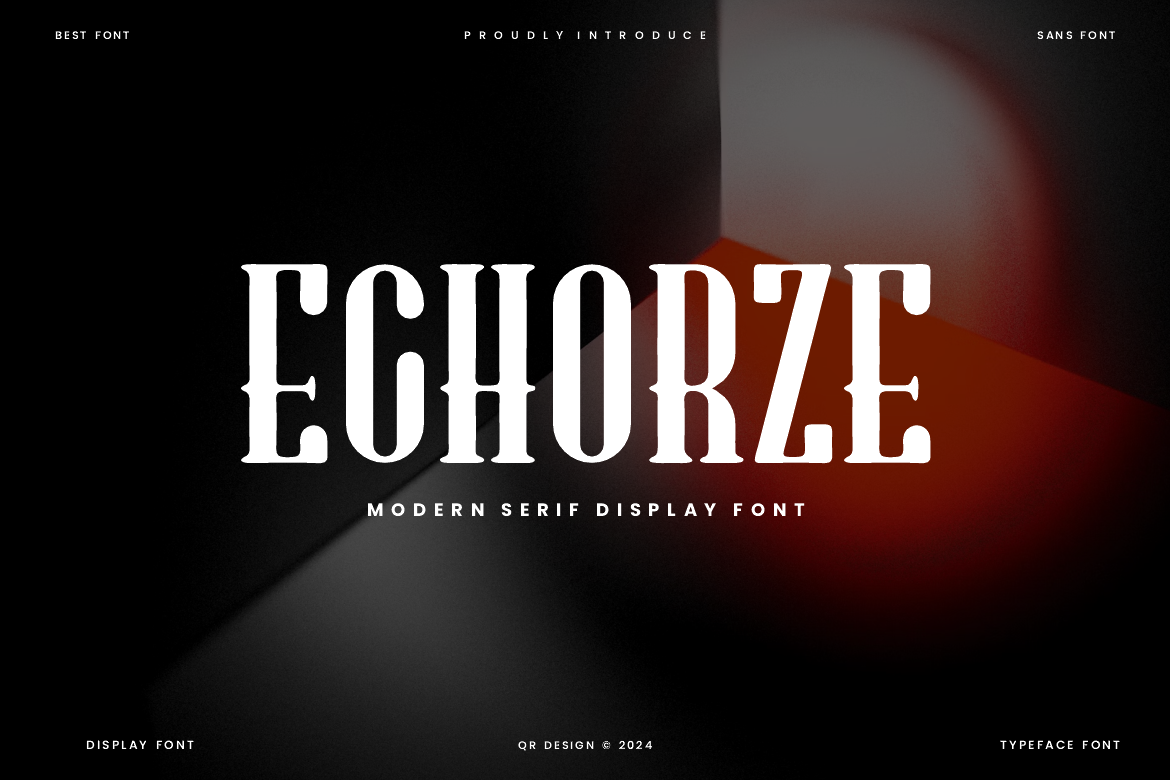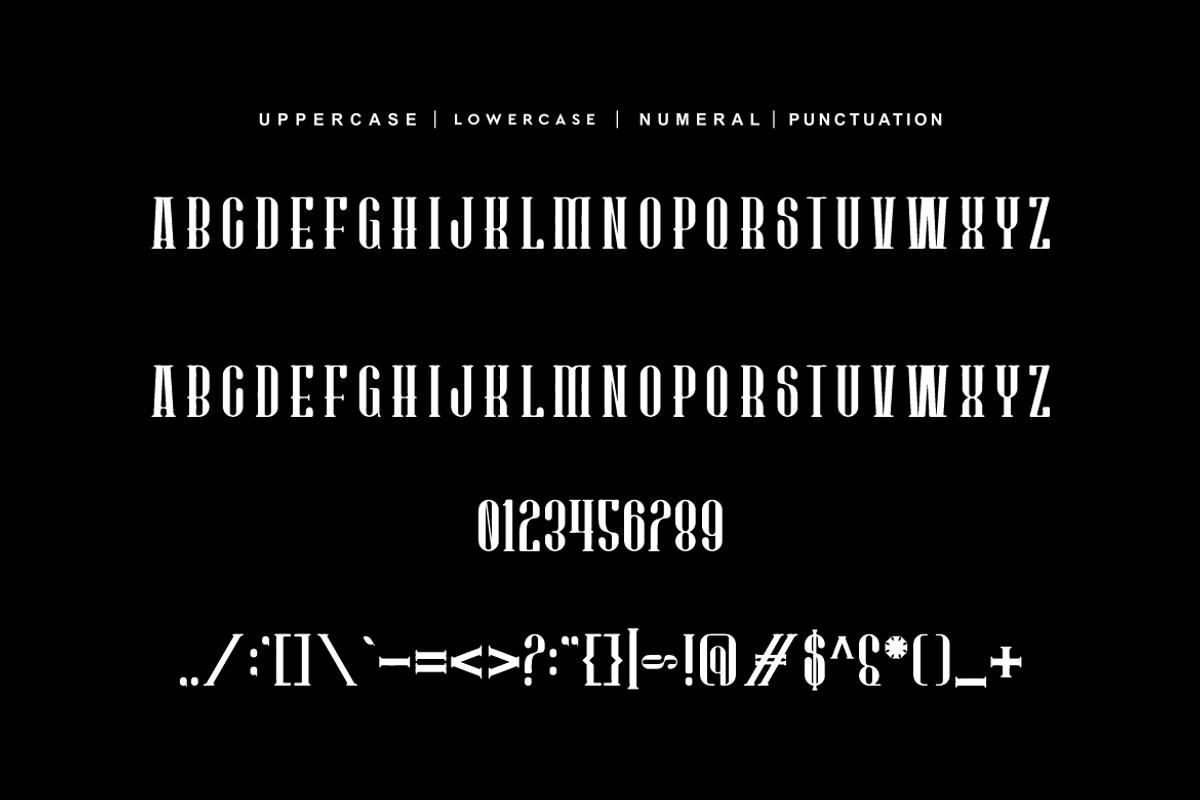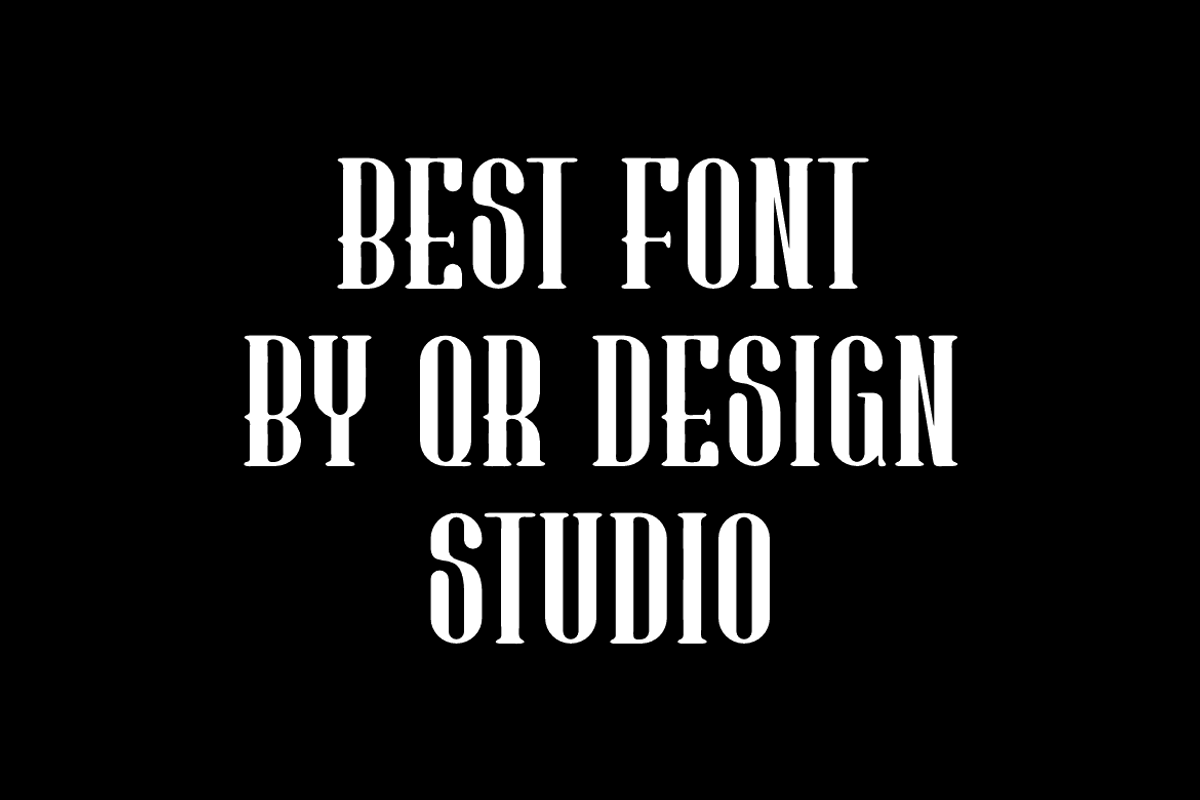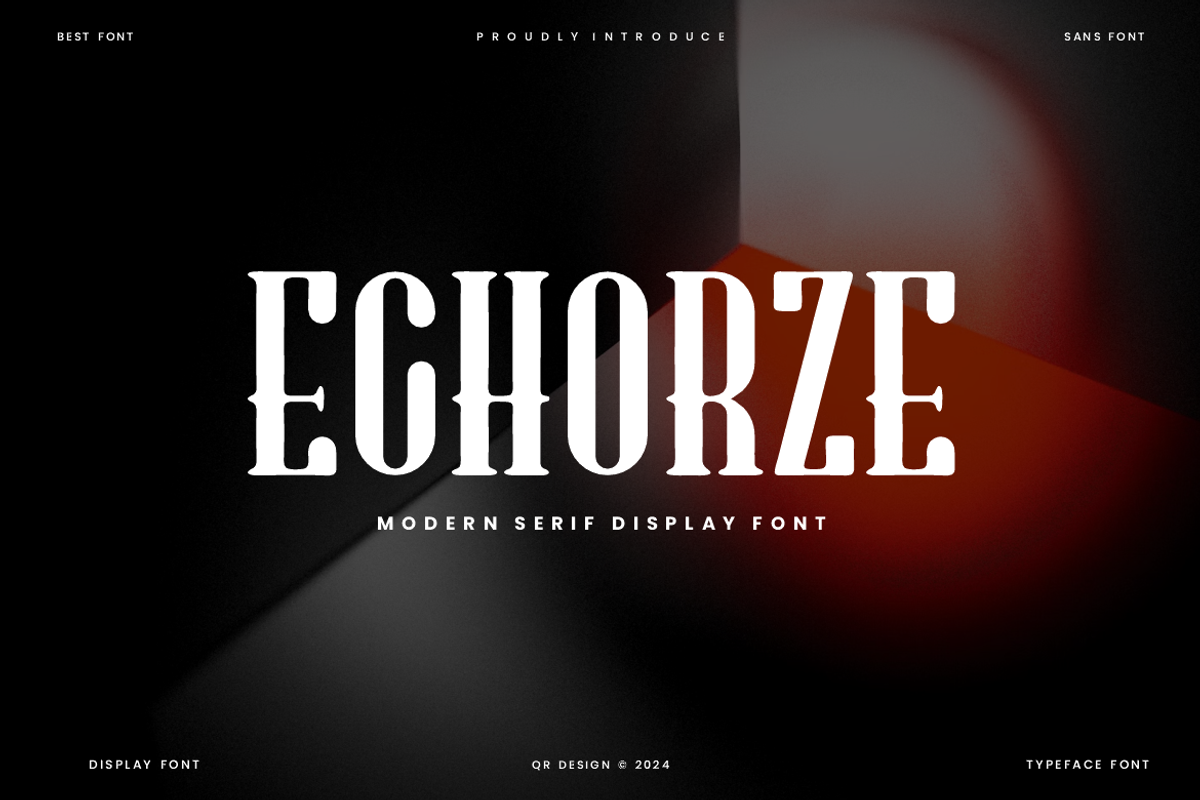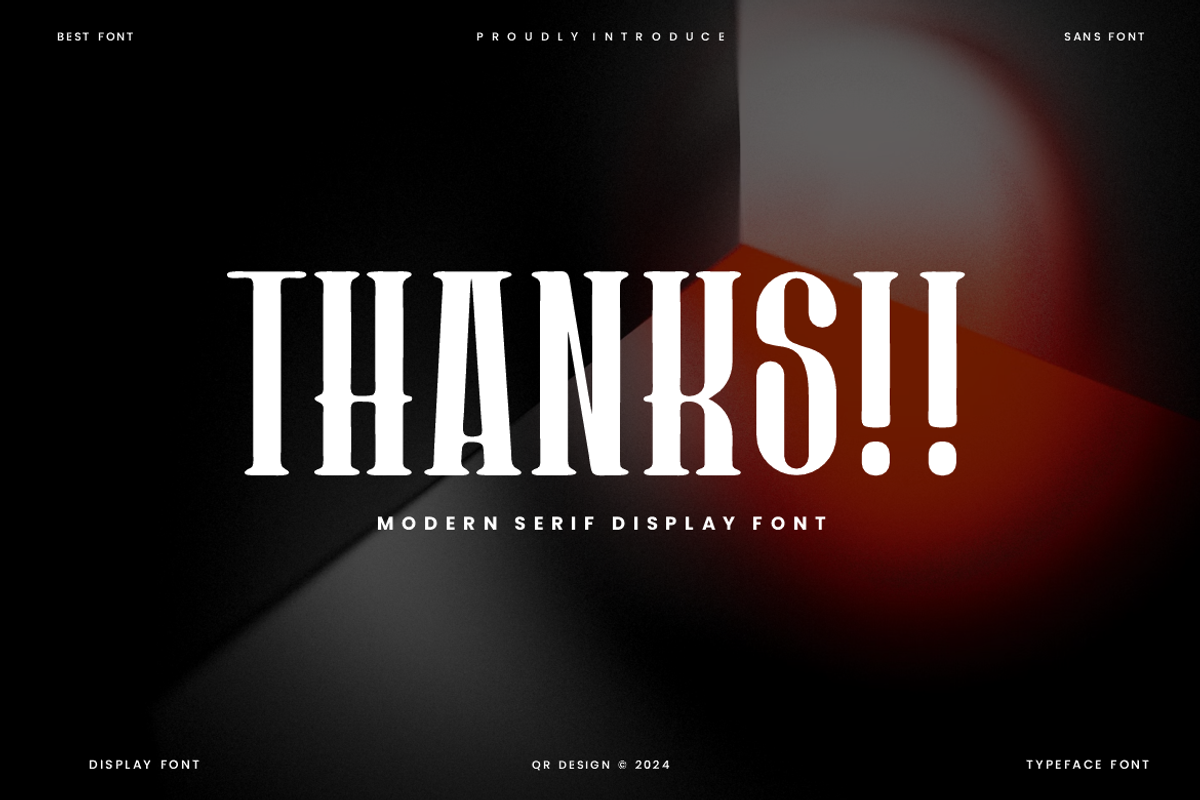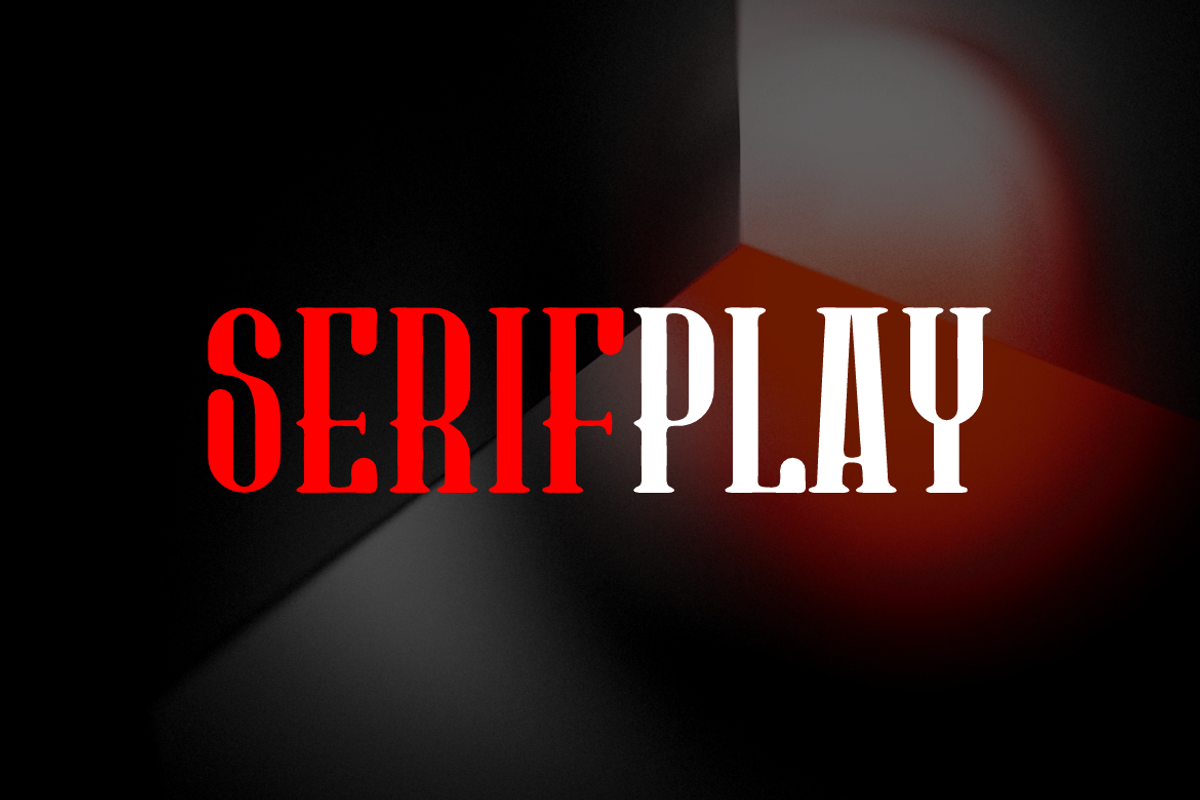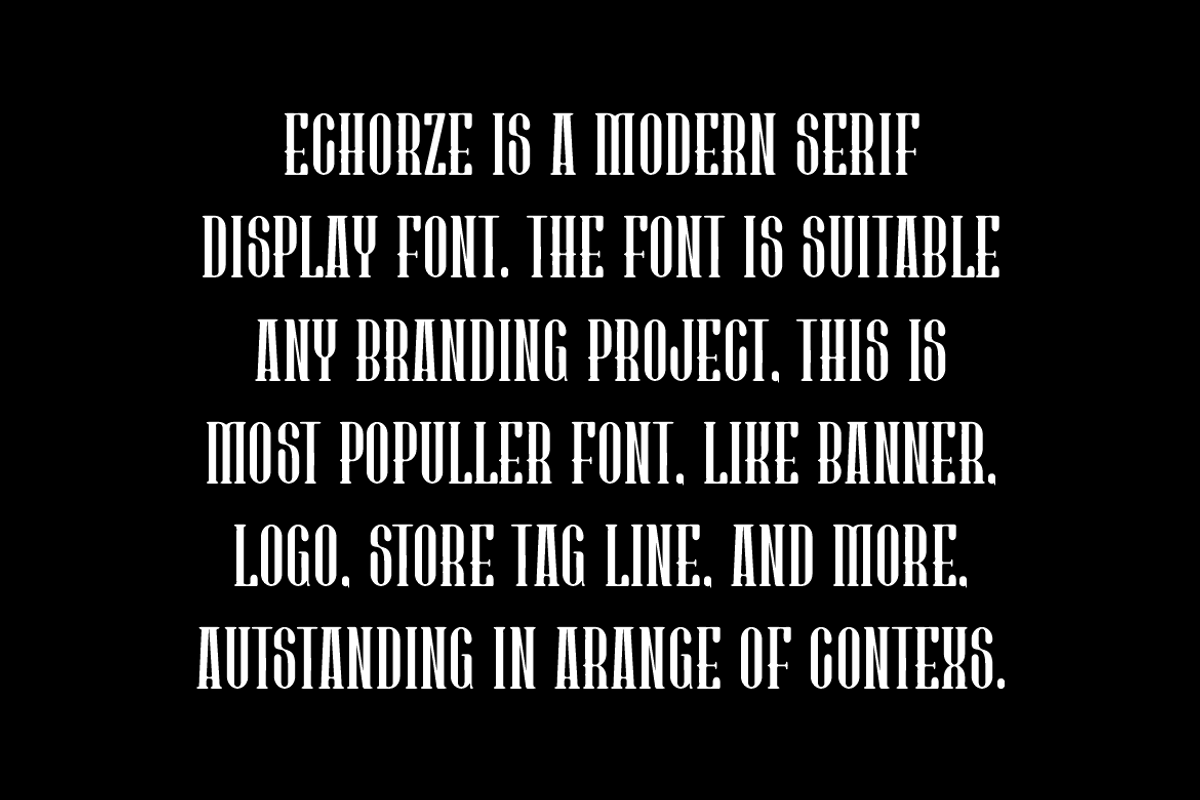
Echorze - Modern Serif Font
Echorze Font is a serif and authentic display font. The font is suitable for any branding project like poster, logo, sport, and many more. Outstanding in a wide range of contexts.